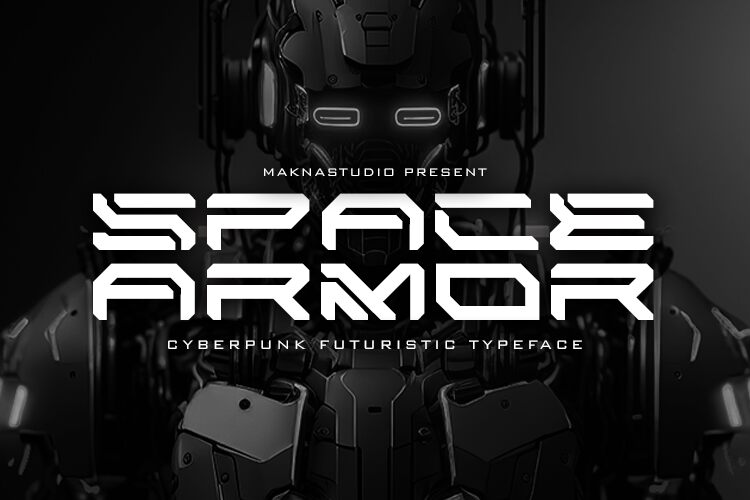
SPACE ARMOR
Space Armor font, designed by MaknaStudio, is an expanded futuristic display typeface with a geometric and angular structure. This modern font features technological elements implemented using a special matrix dot design that can be noticed on the letters while maintaining its artistic style. The impactful font places each character inside rounded squares of uniform sizes.
Use Space Armor for posters, digital art, video game design projects, flyers, magazines, and typography-based branding ideas. It can also decorate t-shirts and other apparel items to deliver a new look to your wearables. Packaging designs and labels will also work when using this free futuristic font.